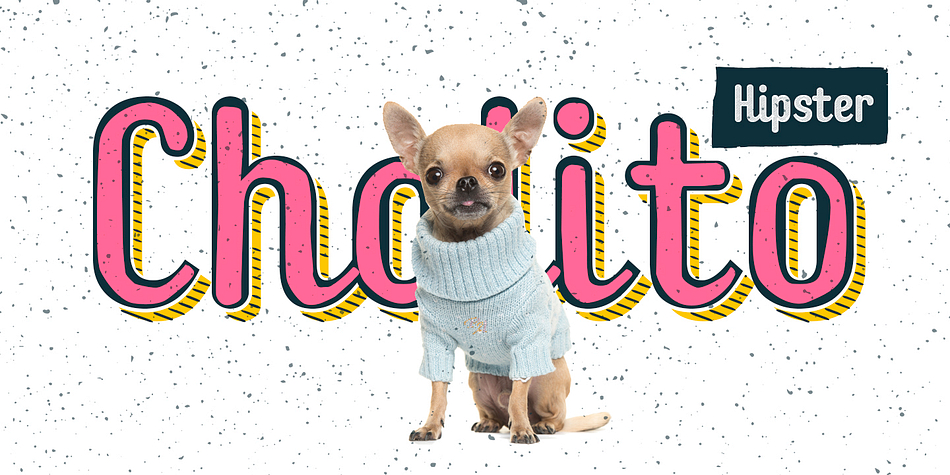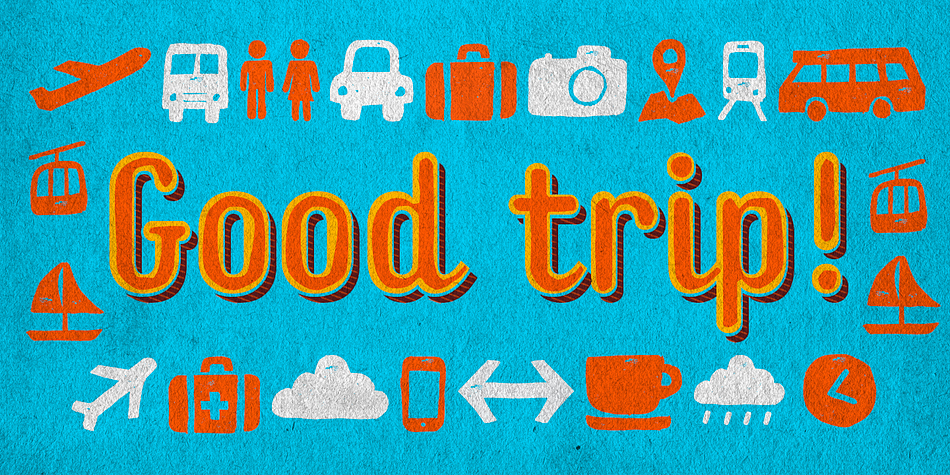
Checkin Script
Designed by Rodrigo Araya Salas and Andrey Kudryavtsev, Checkin Script is a script and dingbat font family. This typeface has twenty styles and was published by Rodrigo Typo.
Checkin Script was designed with the concept of travel in mind. It is especially suited for tourism agencies.
The family contains 4 sets of dingbats. They include Ornaments, Forest, Beach and Standar.
In addition, this family includes a variety of layers to create unique and attention grabbing titles.
Foundry Rodrigo Typo
Styles Script, Dingbat
Designers Rodrigo Araya Salas, Andrey Kudryavtsev